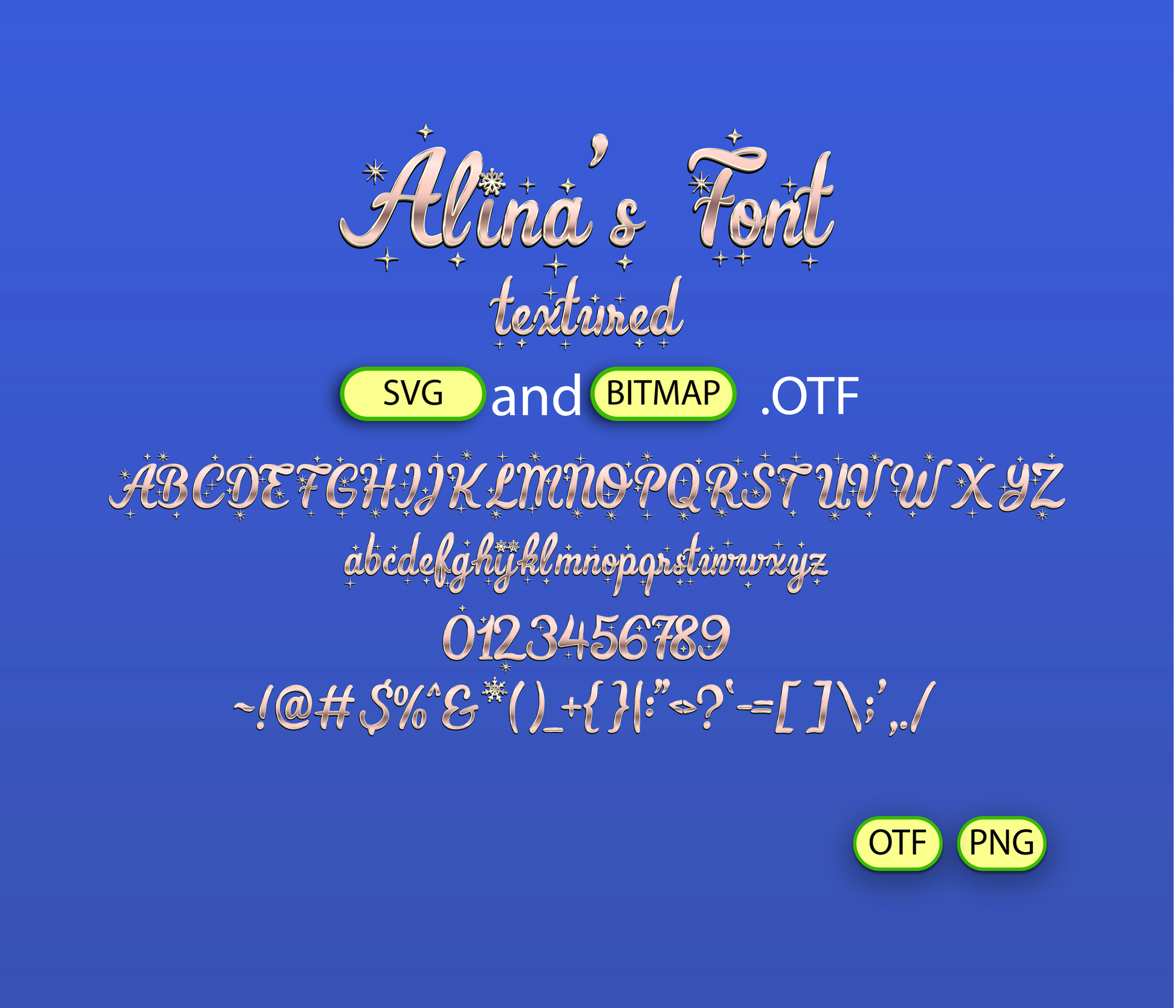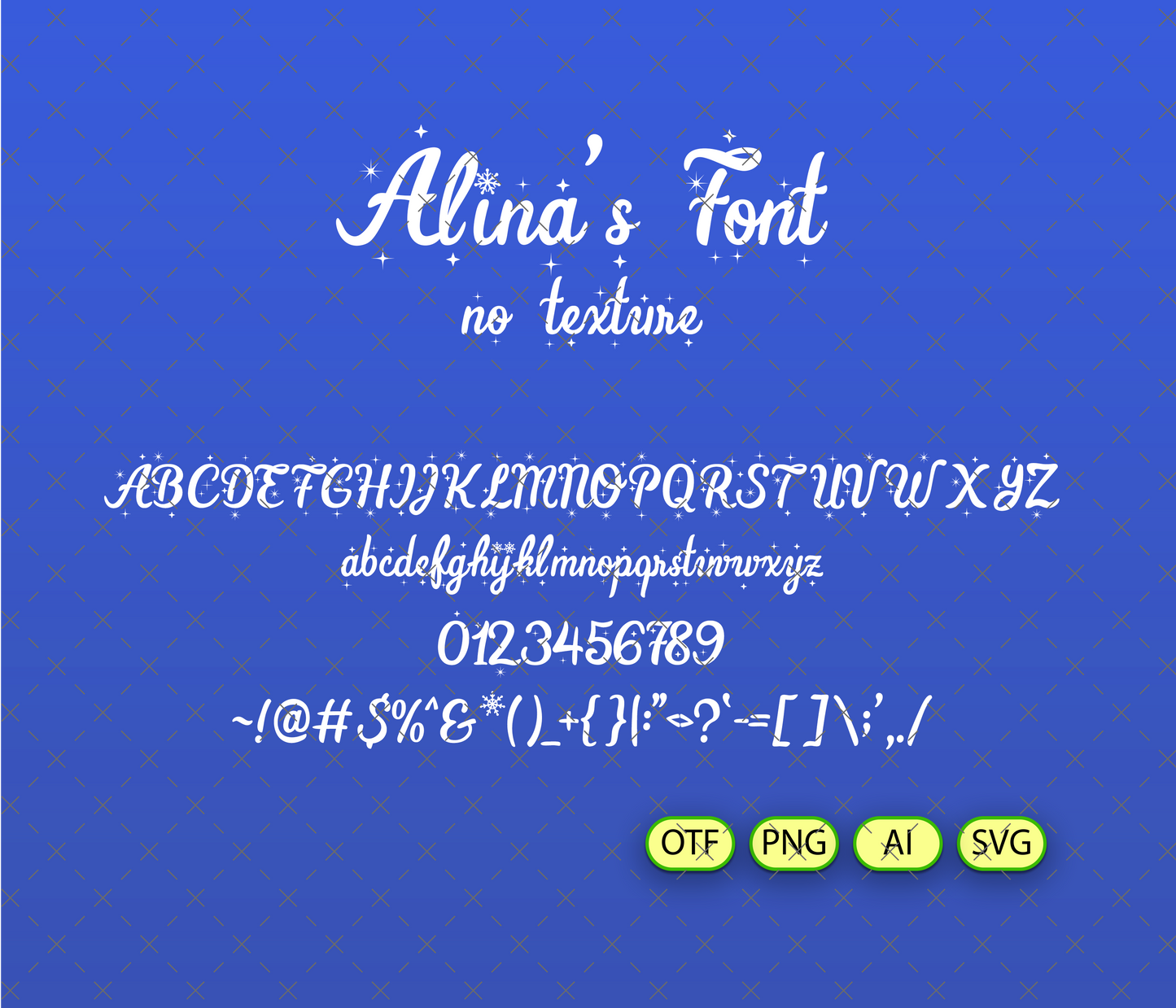
Glitter Holiday Shimmer Font Textured
Step into the glamorous world of luxurious holiday celebrations with our Glitter Holiday Shimmer Font Textured, capturing the essence of sparkling festive cheer and iridescent seasonal traditions. Perfect for holiday crafters, sublimation designers, small business owners, and creative professionals, this font brings the opulent, shimmering spirit of glitter holiday to your projects. Create heartwarming greeting cards, merchandise, or digital content with the dazzling textured energy of the holiday season.
Festive Multicolor Typography for Holiday Crafts & Seasonal Design
Our Glitter Holiday Shimmer Font Textured features vibrant, iridescent letterforms with holiday-themed glitter textures reflecting the world of glamorous decorations and sparkling seasonal joy.
- Event Promotions: Create enchanting invitations, posters, and banners for Christmas parties, holiday markets, and seasonal gatherings that capture the spirit of luxurious festive celebration
- Merchandise Design: Perfect for holiday apparel, ornament tags, gift packaging, and accessories that showcase the opulent aesthetic of glitter shimmer magic
- Digital Media: Enhance websites, blogs, and social media with dazzling headers and graphics that express the warmth of sparkling holiday traditions
- Craft Content: Add authentic shimmering charm to greeting cards, sublimation projects, and creative designs inspired by glitter holiday festivities
- Personal Projects: Bring seasonal joy to scrapbooking, DIY crafts, and home decor inspired by the world of glamorous holiday celebrations
Our font pays tribute to the iconic world of luxurious holiday traditions and sparkling festive design, empowering your projects with its opulent and shimmering spirit. Whether crafting seasonal materials, designing holiday products, or adding a glitter shimmer touch to personal projects, this font communicates the heartwarming essence of iridescent celebration magic. Ready to inject glitter holiday cheer into your creations? This font is your key to glamorous, impactful design.